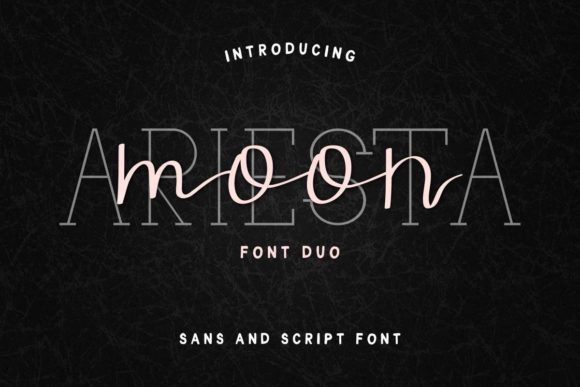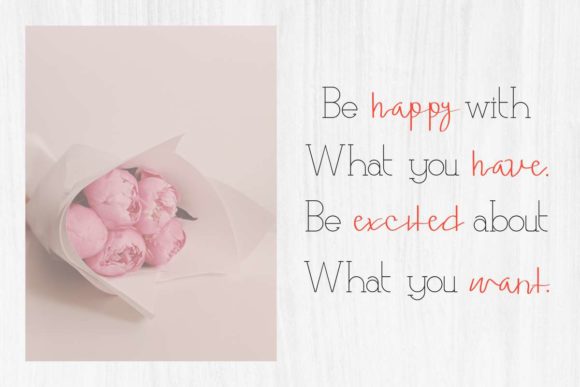
About Ariesta Moon Duo Font
Ariesta Moon duo is a match made in heaven, the authentic glyphs of the script perfectly complement the serif version’s style. Combining these two fonts on your next design will give your next design a playful and elegant feel.
This versatility means that this font can be used in a wide variety of applications from branding, to DIY projects – the only limit is your imagination!